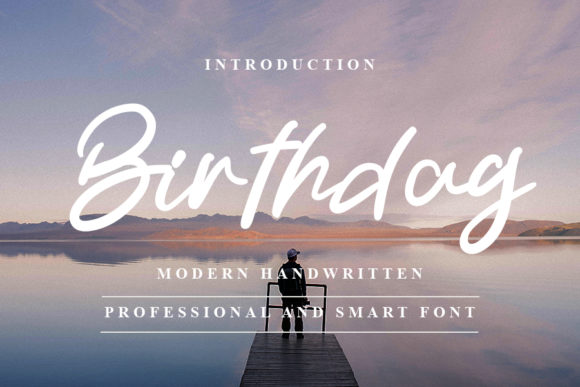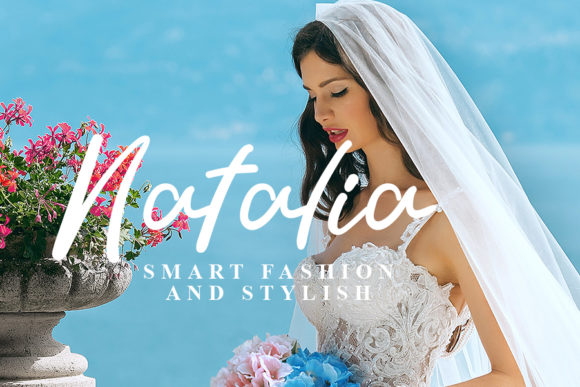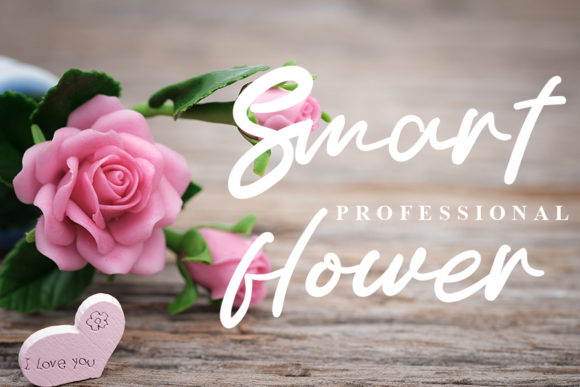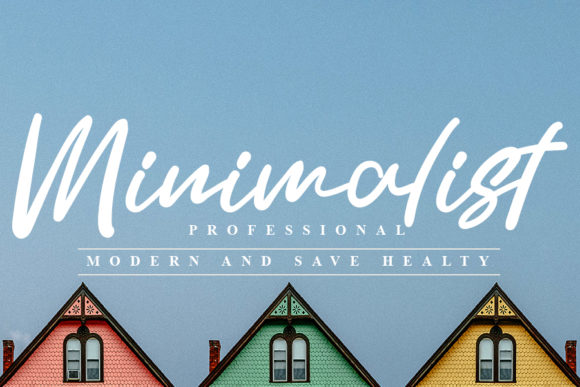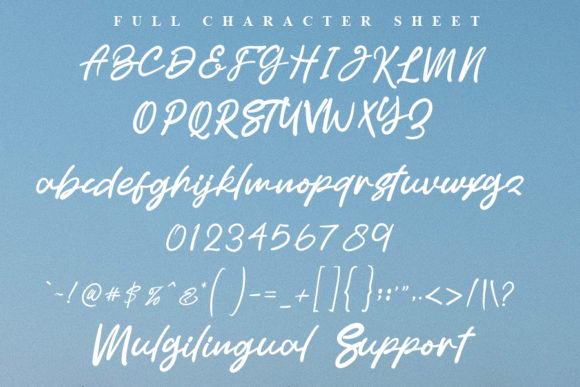
About Birthday Font
Birthday is a beautiful and relaxed handwritten font. Created with the help of a neat brush, this font will become your top choice for each of ideas that you wish to develop.